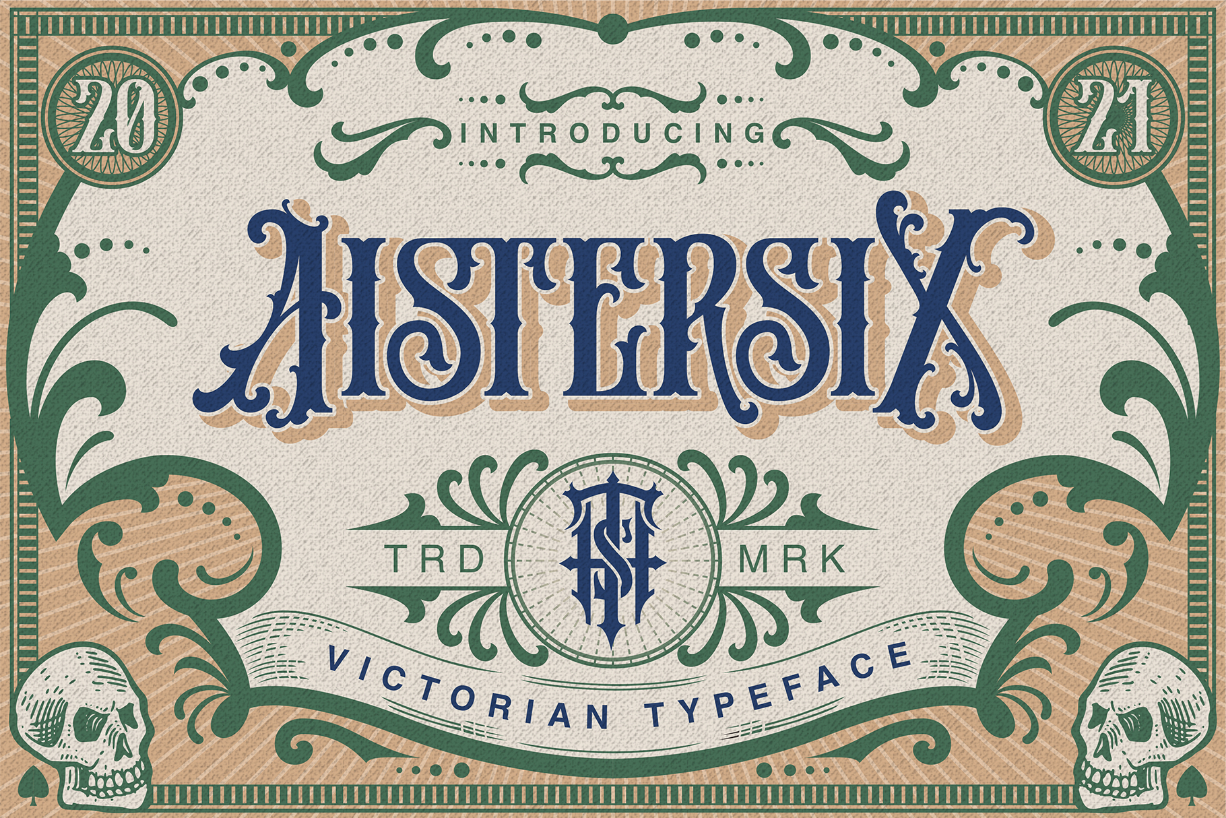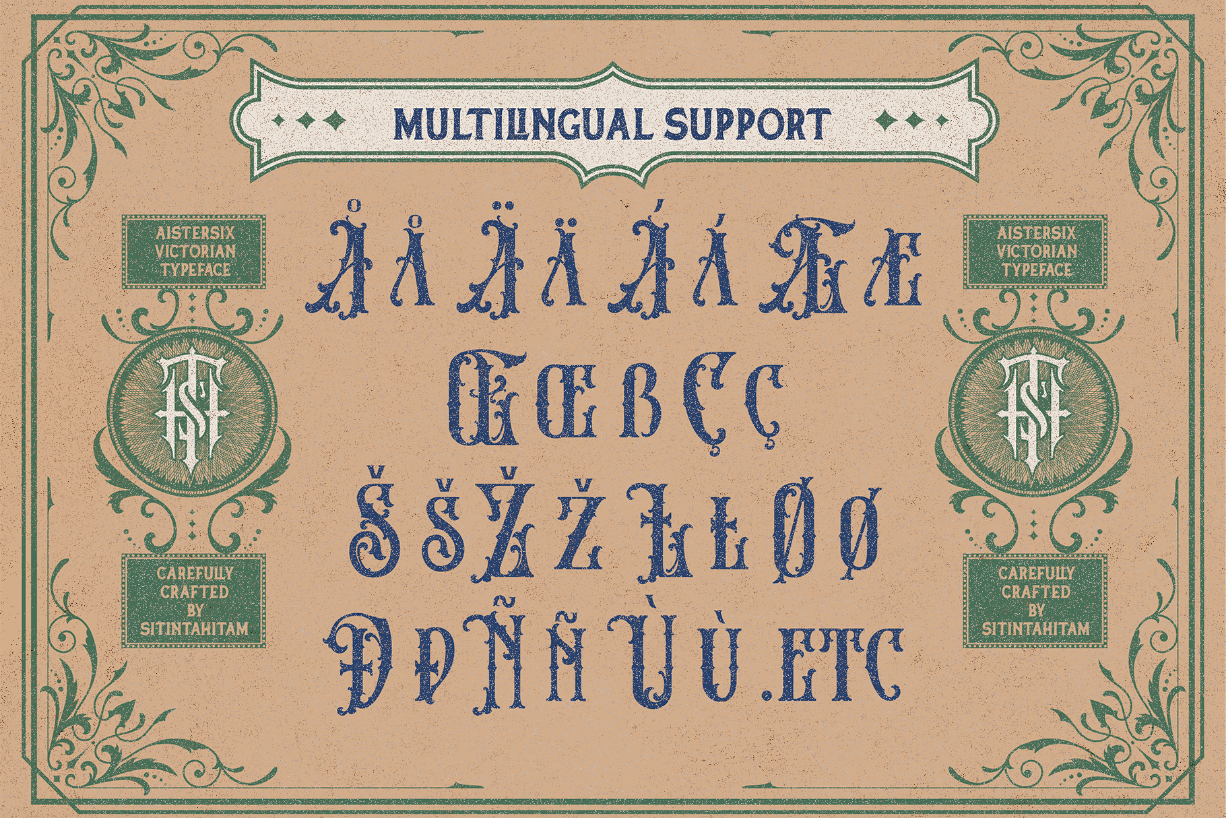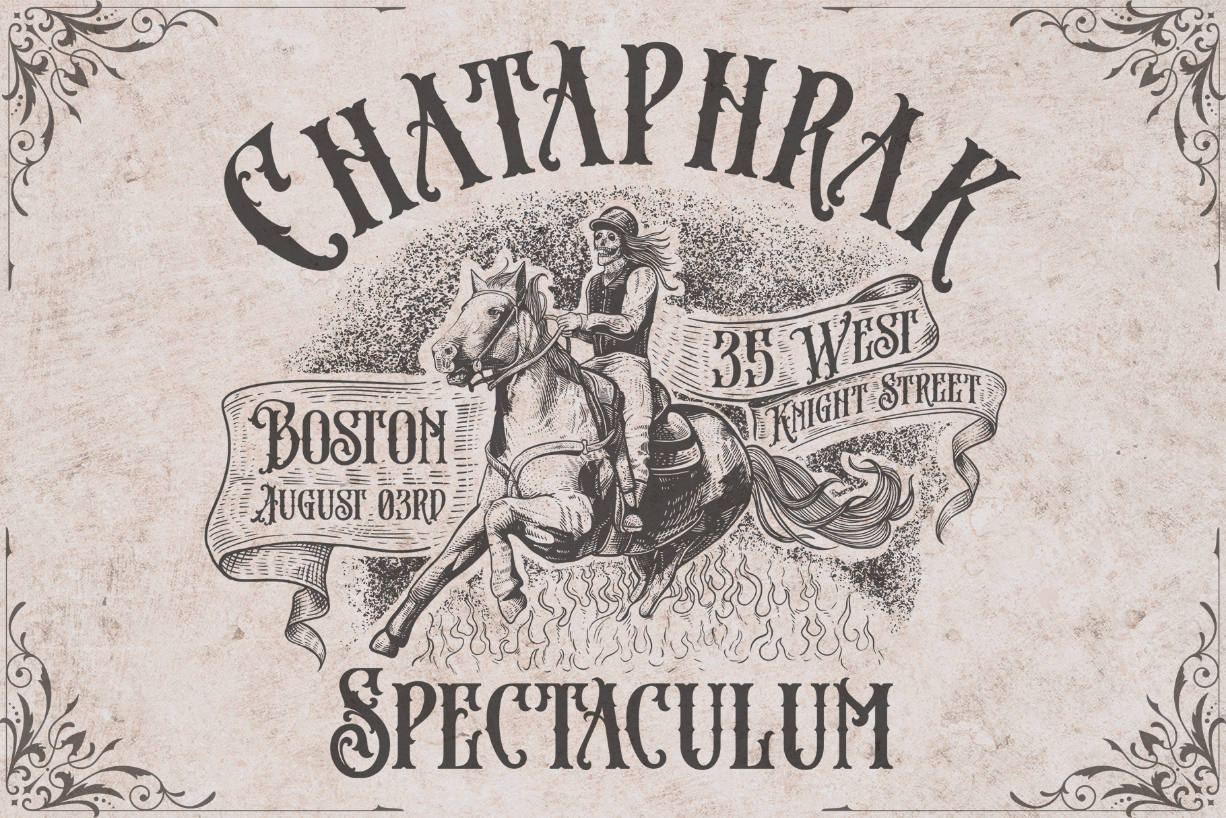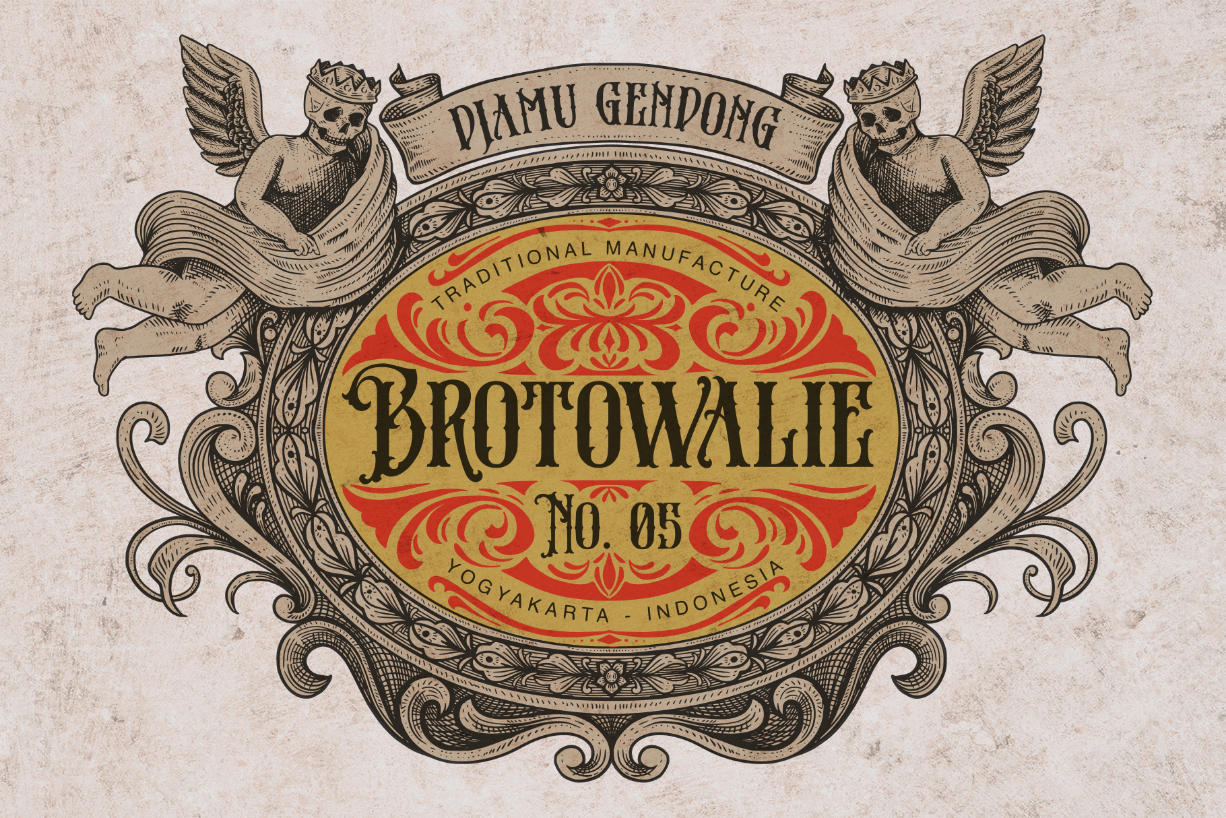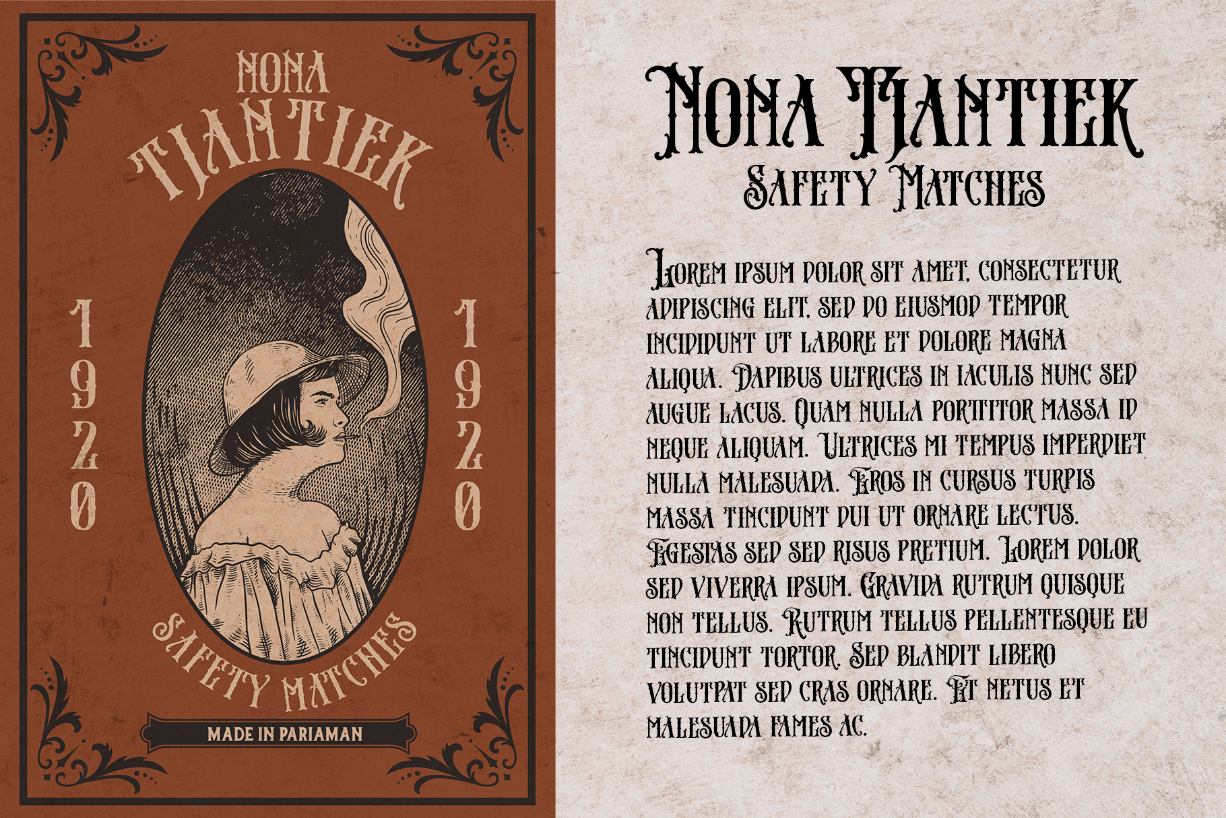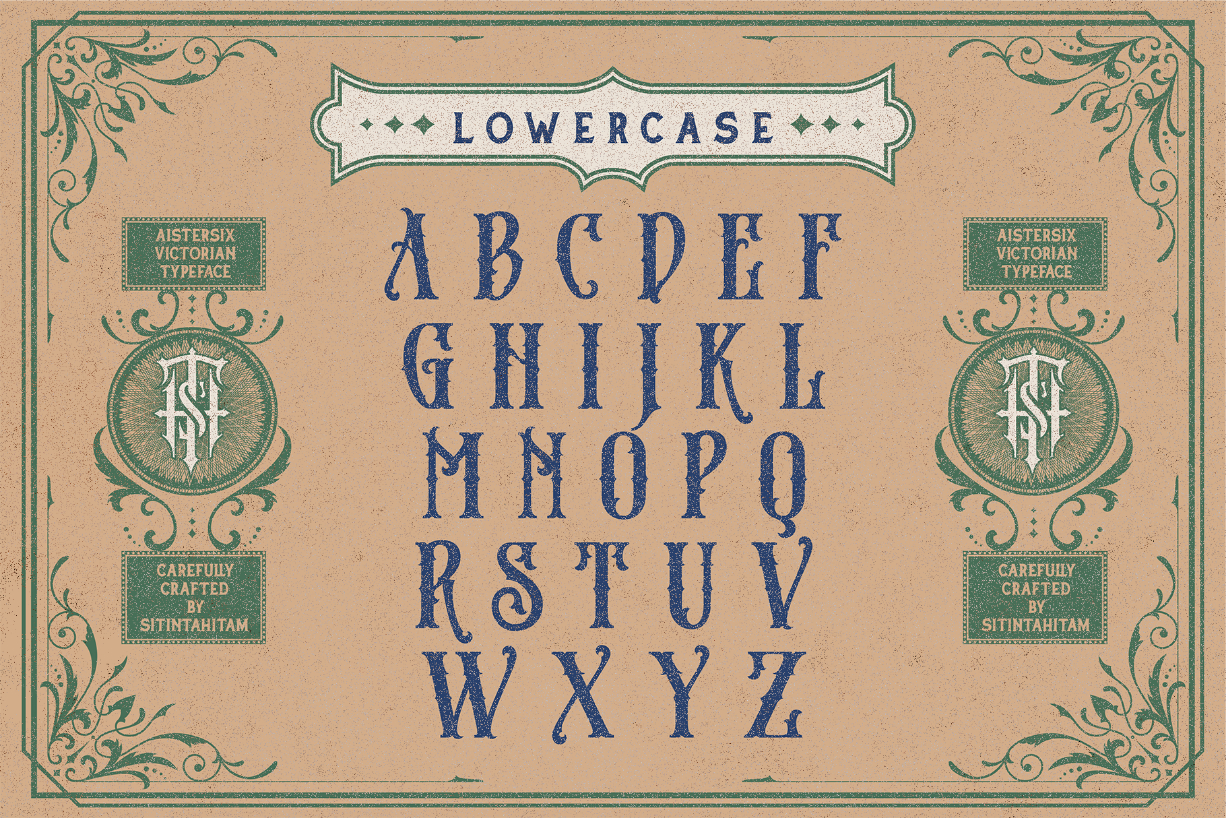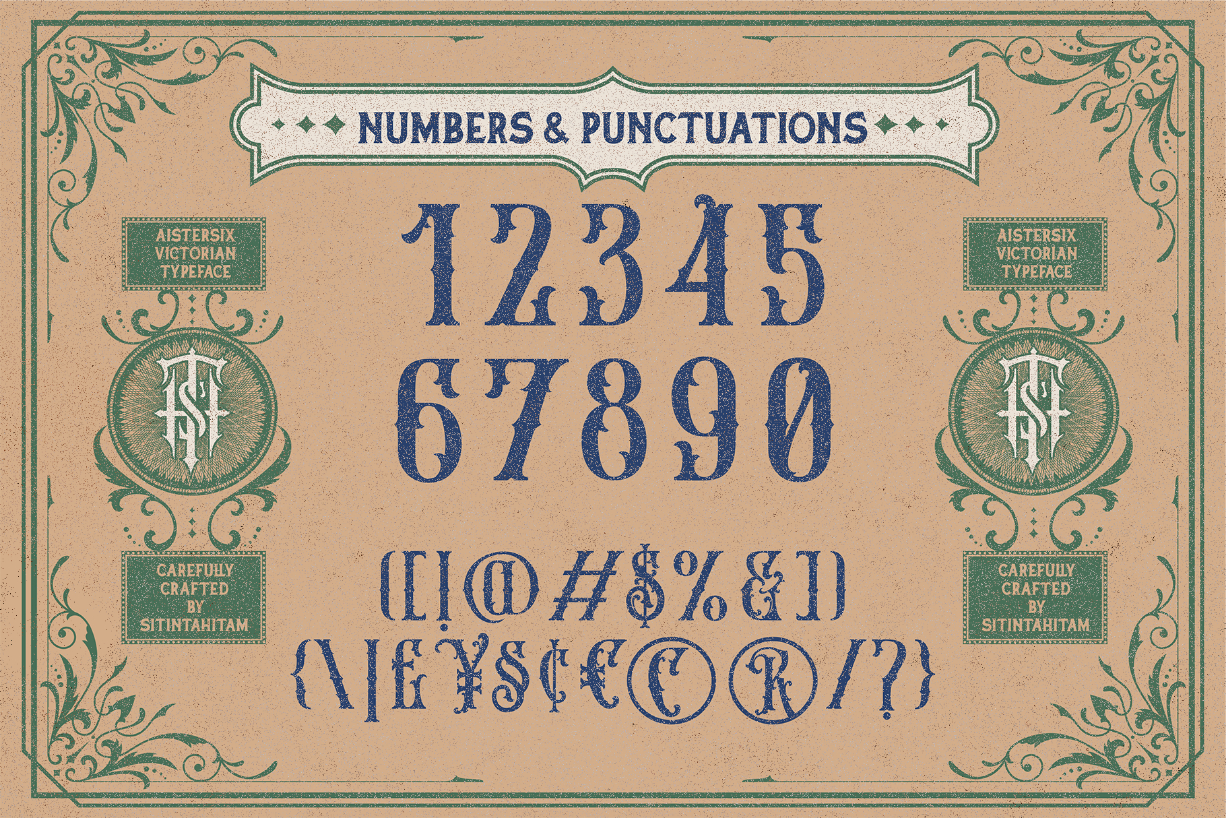
Aistersix Font
About Aistersix Font
Aistersix is an assertive, blackletter font. It is imposing and features uniquely shaped letters, and as a result, it will easily match a wide range of creations that require a distinct touch.